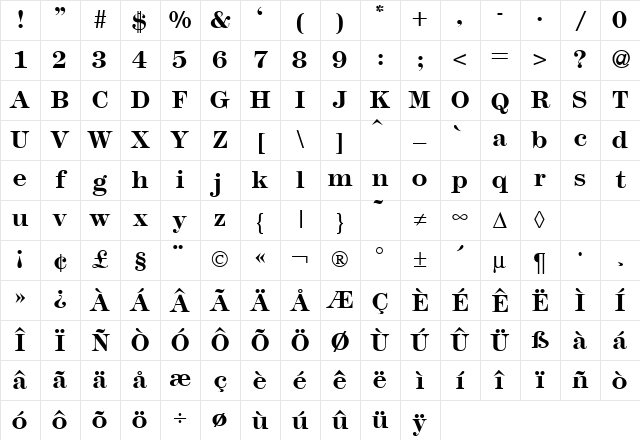
Modern438 Bold
Design Context for Modern438
Modern438 is a composed and adaptable typeface that performs quietly and consistently across a wide range of design contexts. Its bold stroke weight gives it real presence on the page.